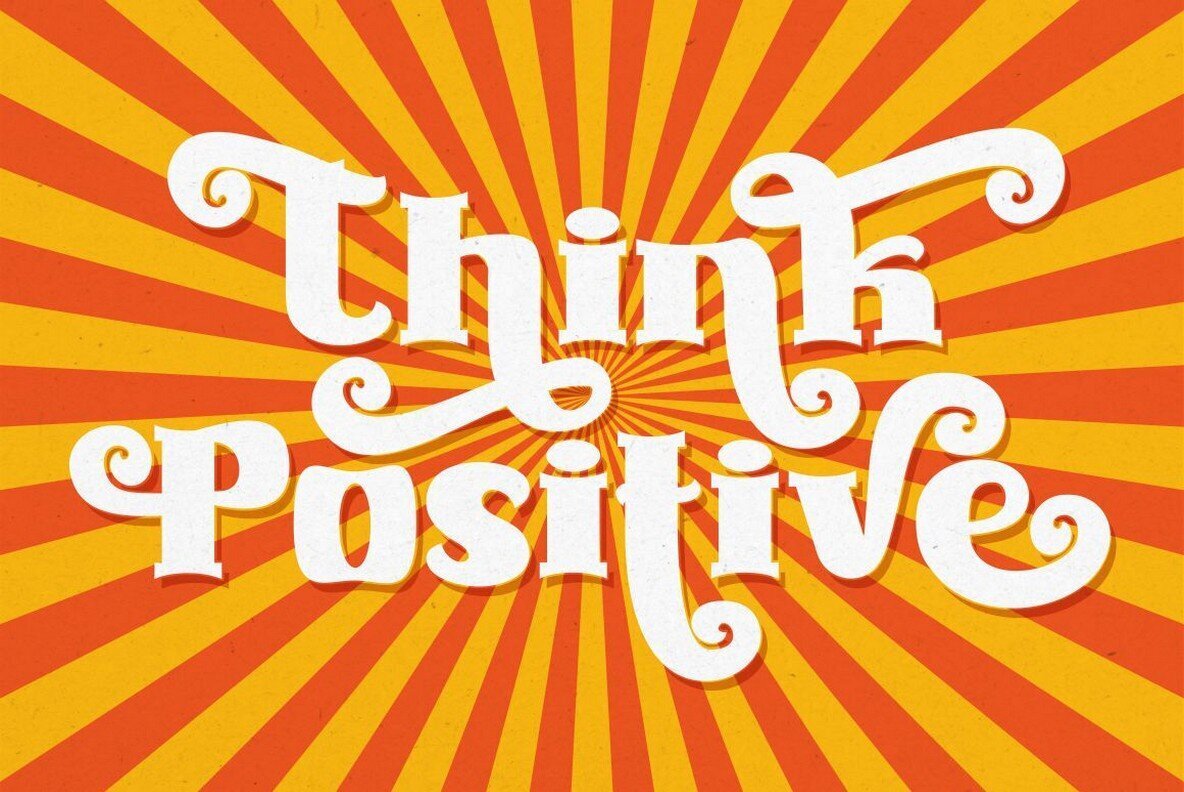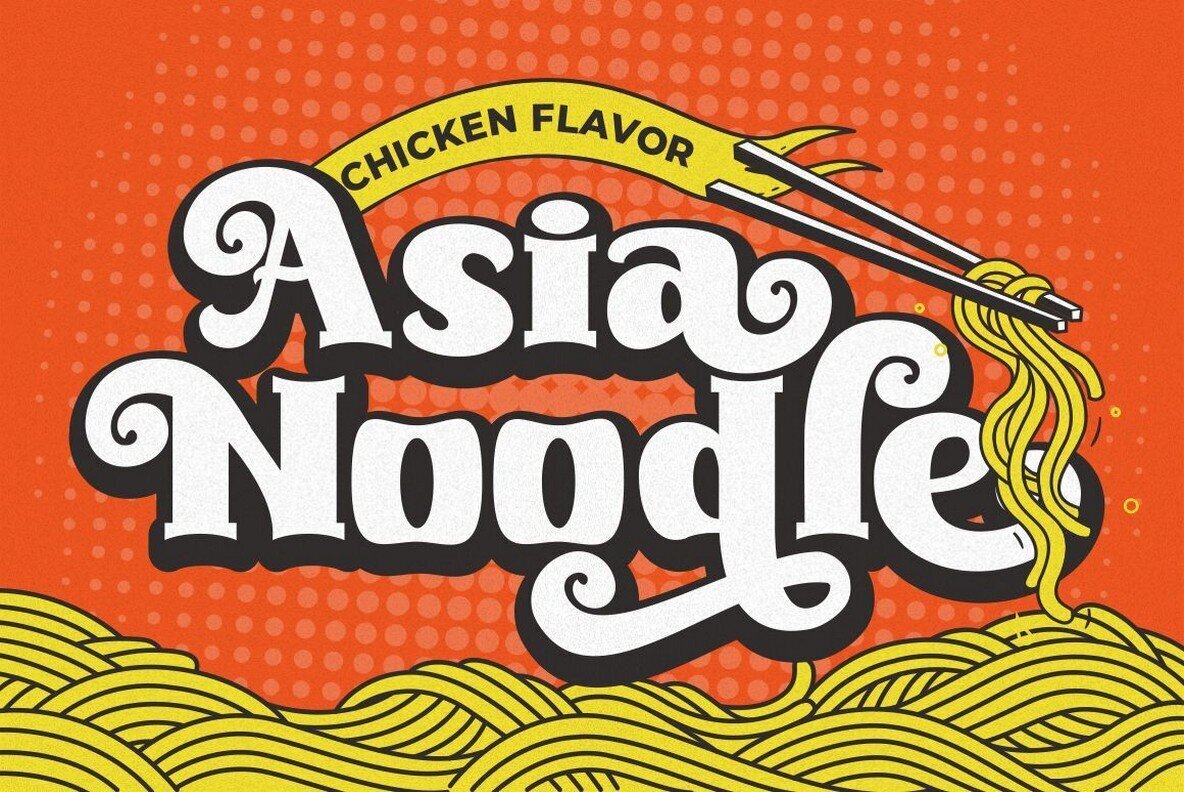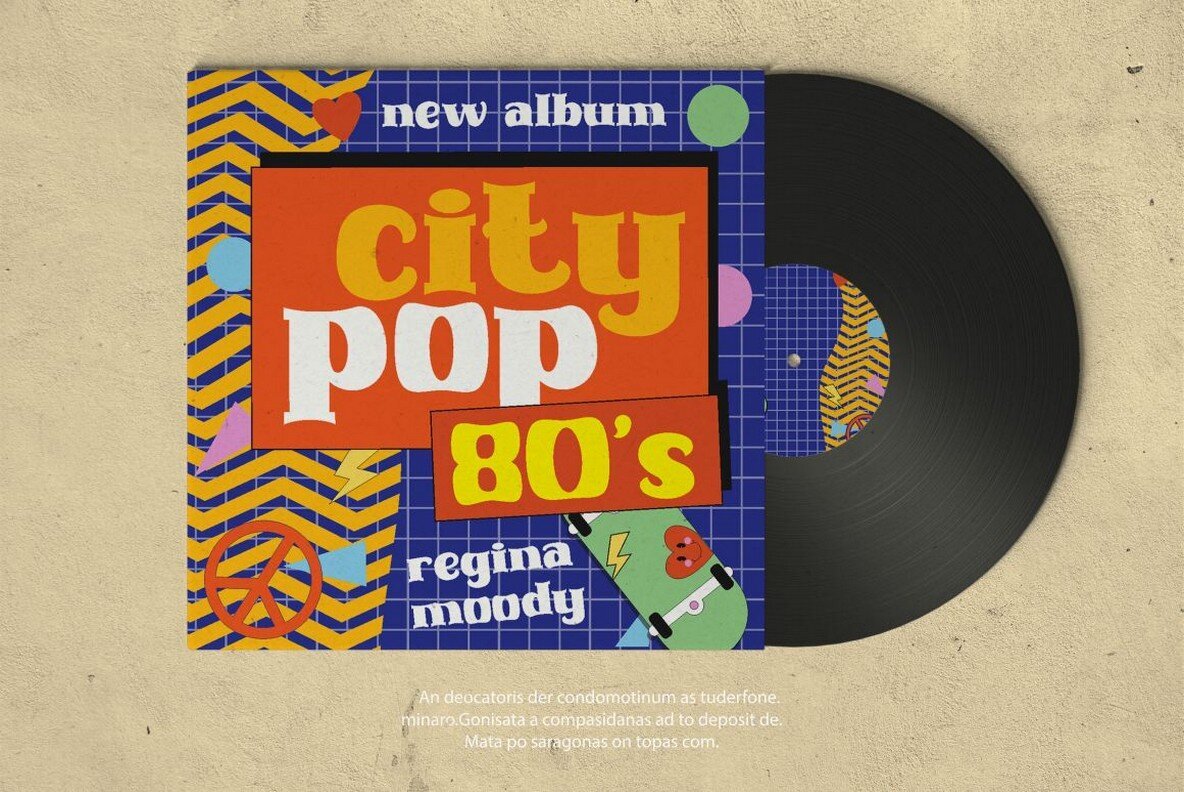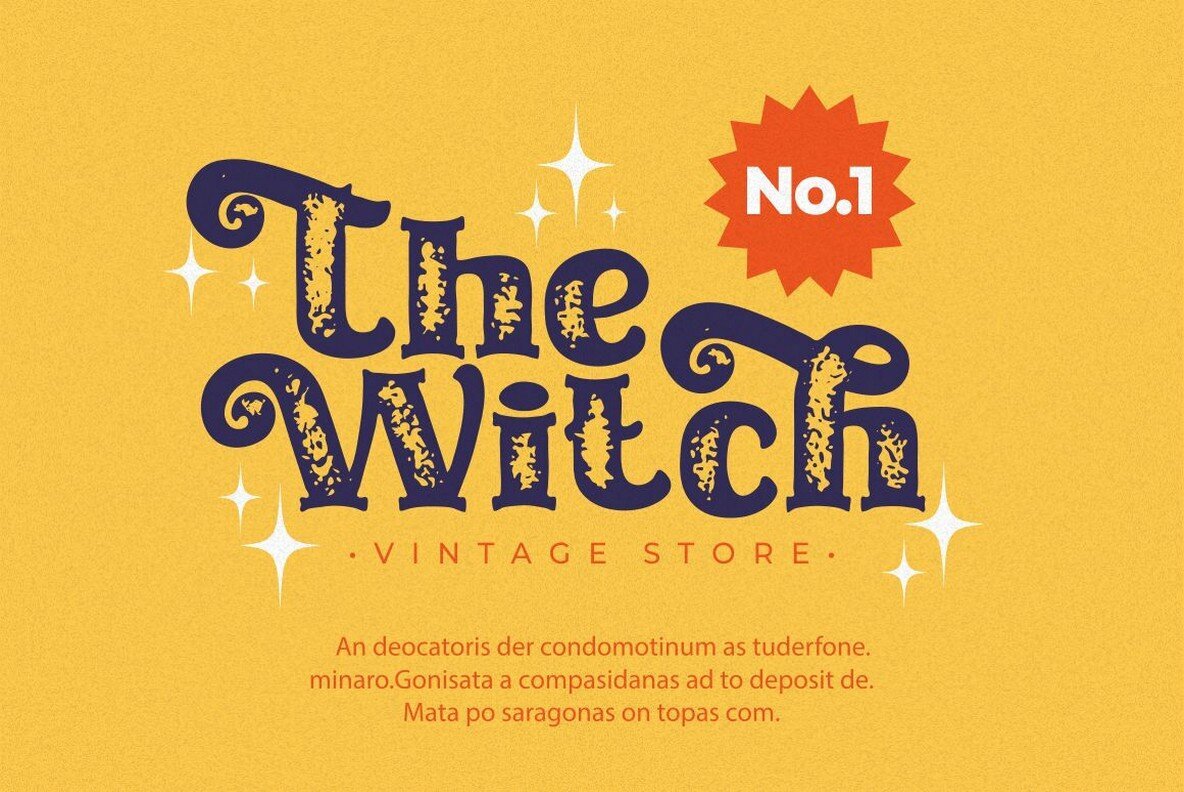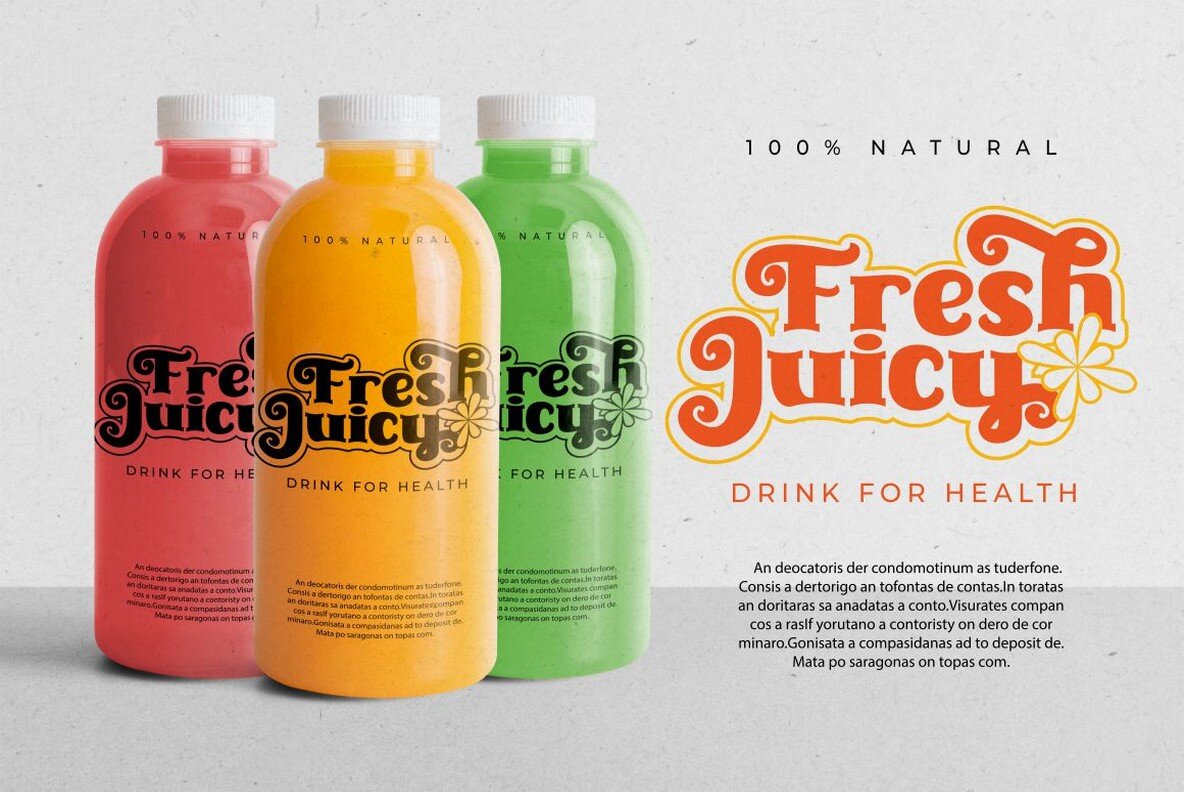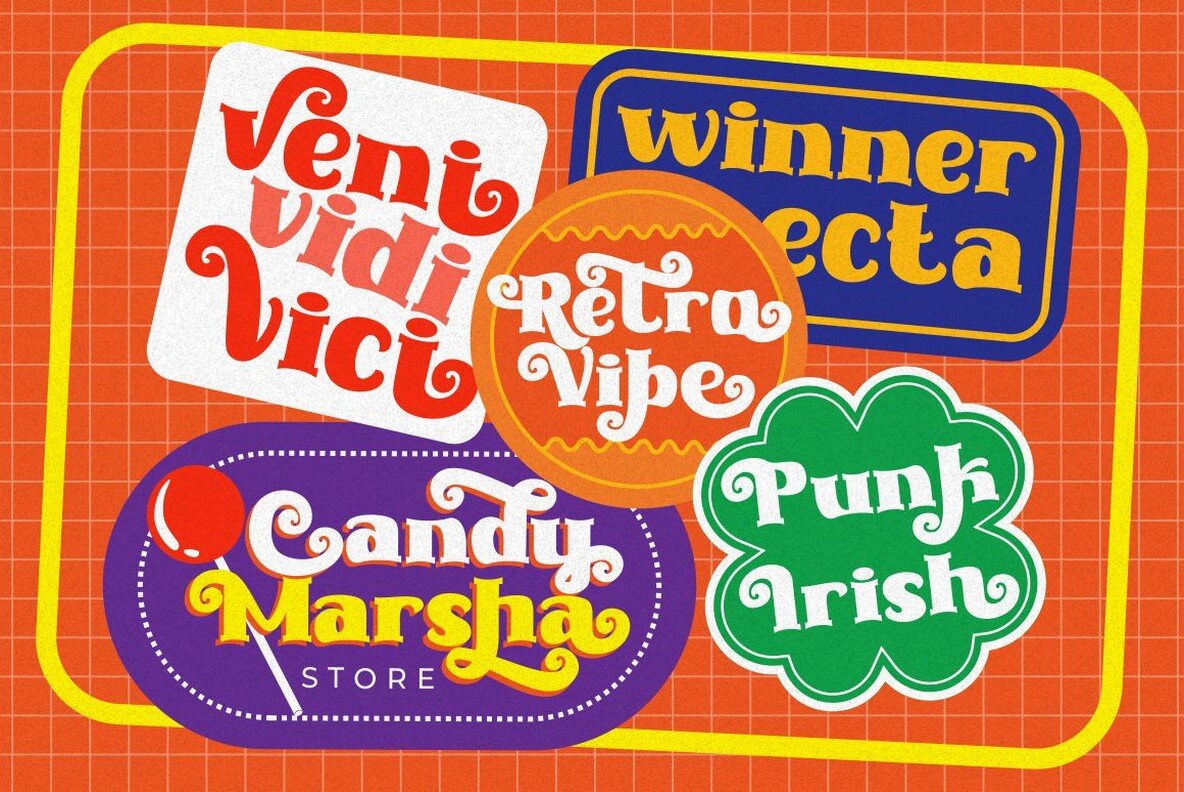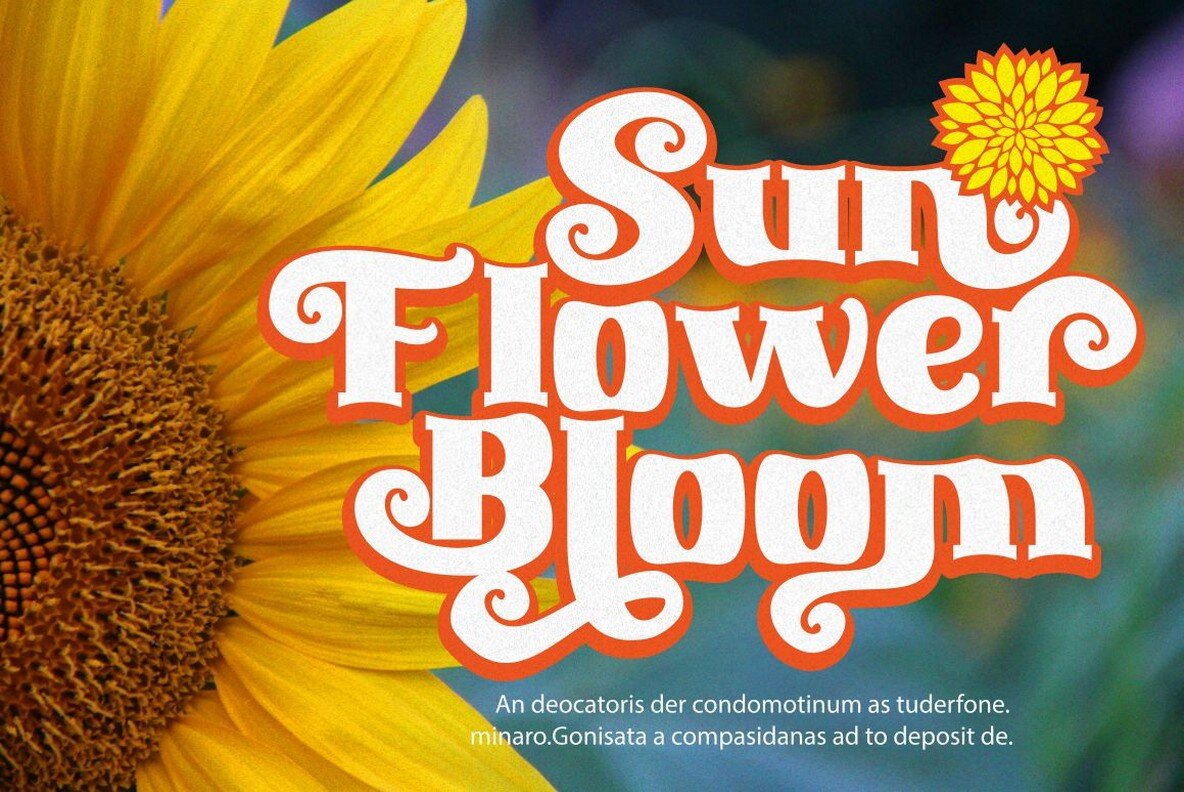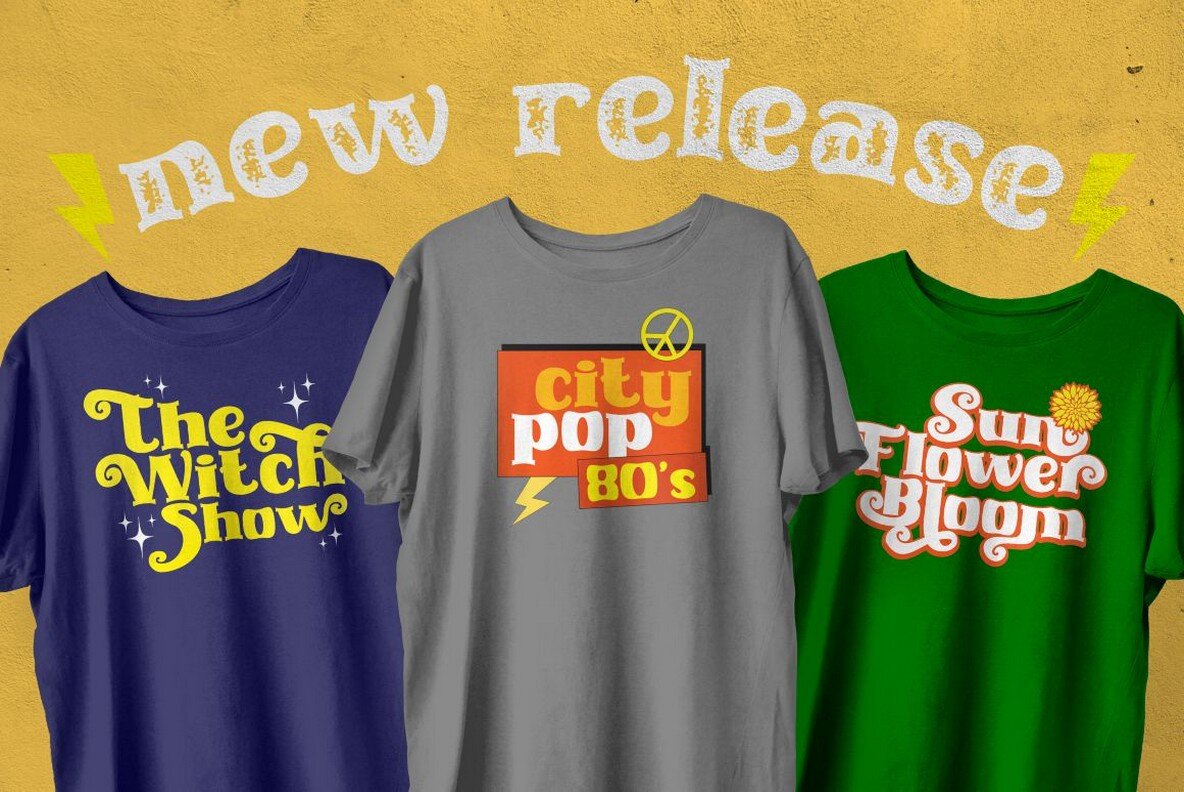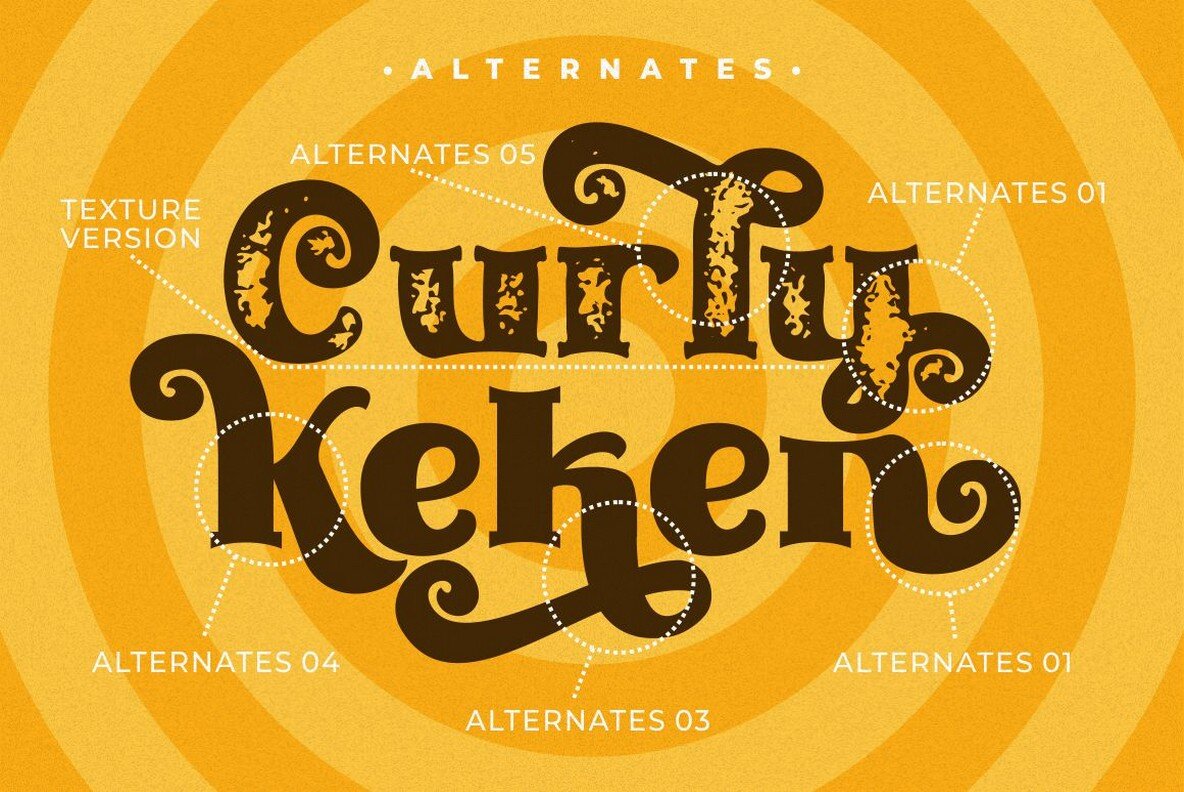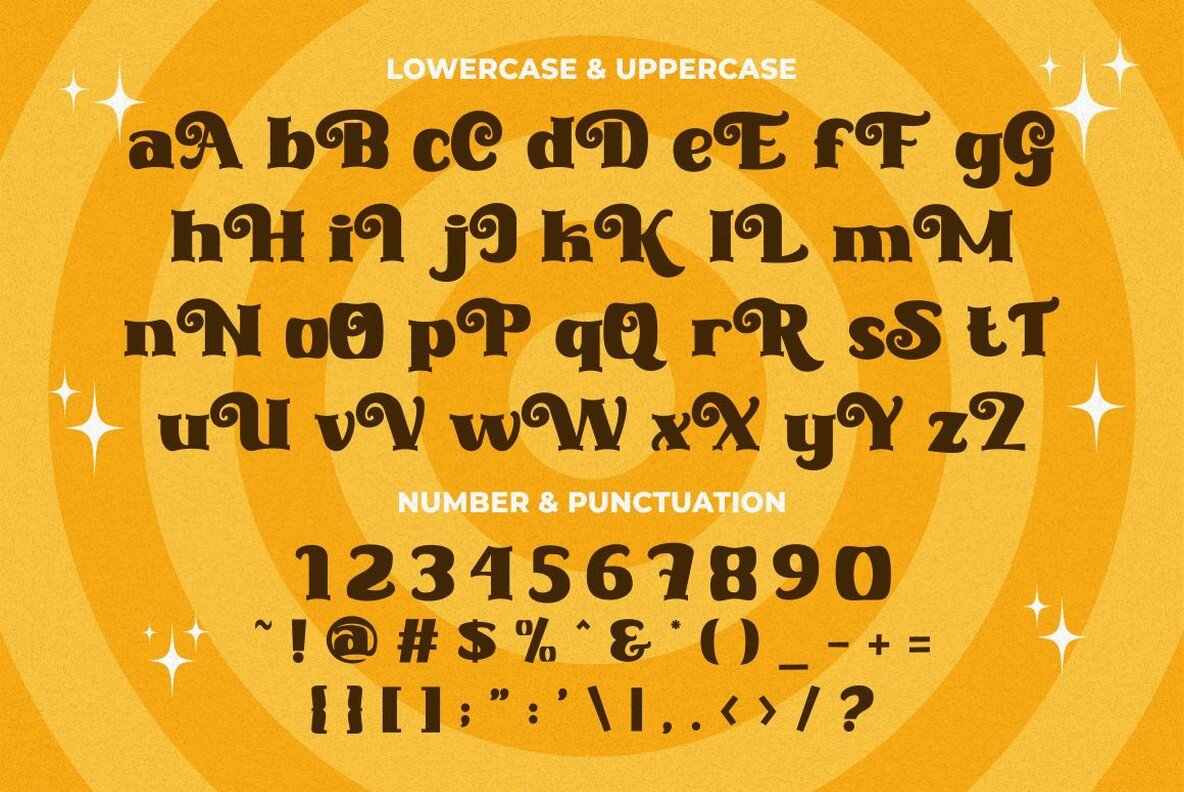
Curly Keken Font
Curly Keken Regular
Curly Keken Texture
Go out and make some logos with this cool, creative font! This retro-looking type will give you all the old school flair that your business needs to be taken seriously. You can create anything from headings for websites or social media posts down lettering on posters advertising upcoming events - it's OpenType so there are loads of options available at once (359 alternate characters in total).